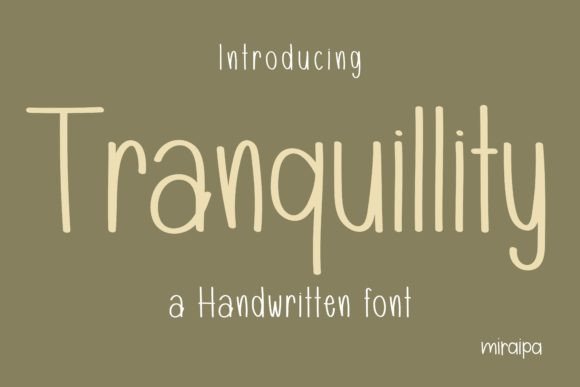
Dive into the world of Tranquillity, an enchanting sans-serif font that exudes a friendly and lovely charm. Picture the perfect harmony between casual elegance and playful appeal, and you'll find Tranquillity waiting to grace your creative projects.
Unleash your imagination and let Tranquillity take center stage in your diary planners and journals, transforming them into cherished companions that mirror your unique style. As you jot down your thoughts, dreams, and aspirations, Tranquillity's gentle curves and flowing strokes will add a touch of warmth and whimsy to your entries.
Embark on a creative journey with Tranquillity as your trusty companion. Its versatility knows no bounds, seamlessly adapting to back-to-school designs, party decorations, and festival posters. Let your creativity soar as you craft eye-catching invitations that capture the essence of joy and celebration.
Visualize Tranquillity gracing your social media posts, adding a touch of individuality to your online presence. Its captivating presence will draw eyes and hearts, making your content shine brighter than the stars.
Picture the magic of Tranquillity adorning your blogs, clothing, and children-related designs. Its charming personality will infuse your creations with an irresistible allure, resonating with audiences of all ages.
Tranquillity's essence is a celebration of life's simple pleasures. It embodies the joy of childhood, the warmth of friendship, and the beauty of everyday moments. With each stroke of this font, you'll weave a tapestry of memories that will last a lifetime.